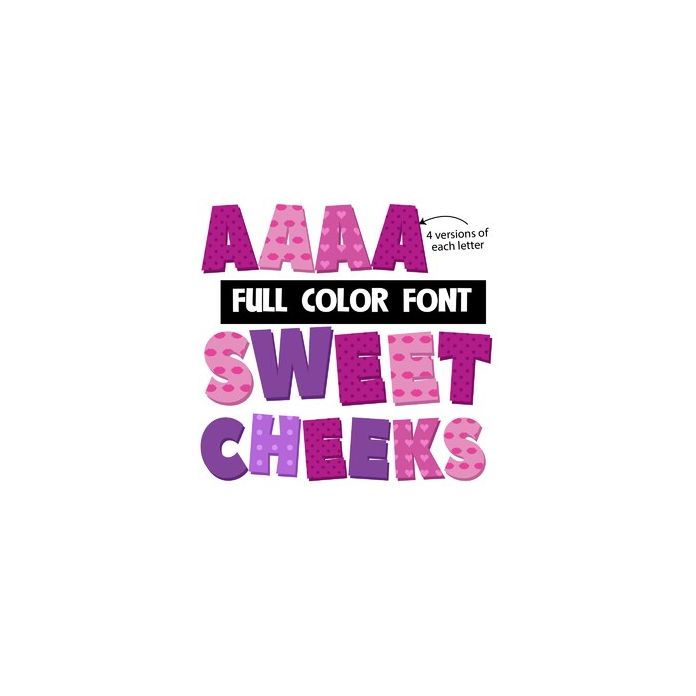
This full-color font features hot pink and purple Valentine prints. There is a second upper and lowercase you can access through your system's character map. This font works best for titles, displays, posters and more. Please note color fonts will show as black in non compatible programs. This font type is compatible with Silhouette Studio.